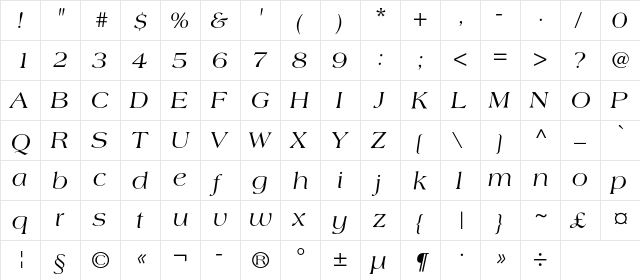
Laguna-Italic Regular
Design Context for Laguna-Italic Typeface
Laguna-Italic offers clean, dependable letterforms without strong stylistic allegiance, making it a practical choice for designers who need flexibility. The dynamic lean of this cut emphasises speed and emphasis in any layout.
Pro Tip: Try Laguna-Italic for annotation and caption copy alongside an upright companion — the contrast in angle creates a dynamic but ordered typographic system.